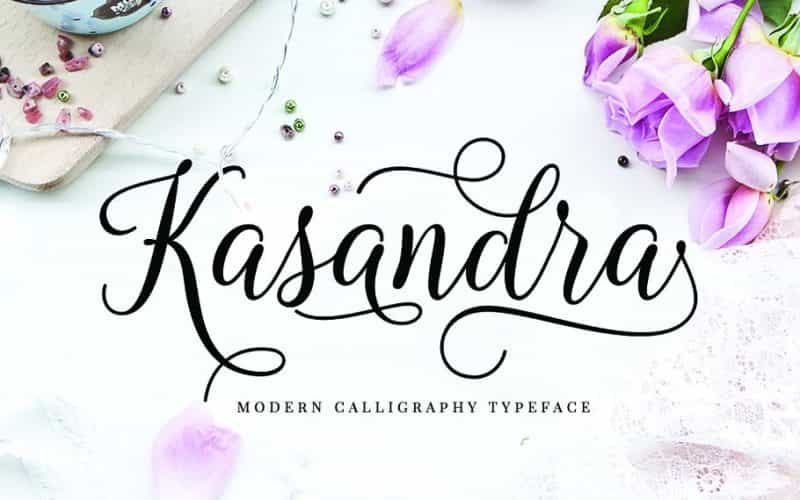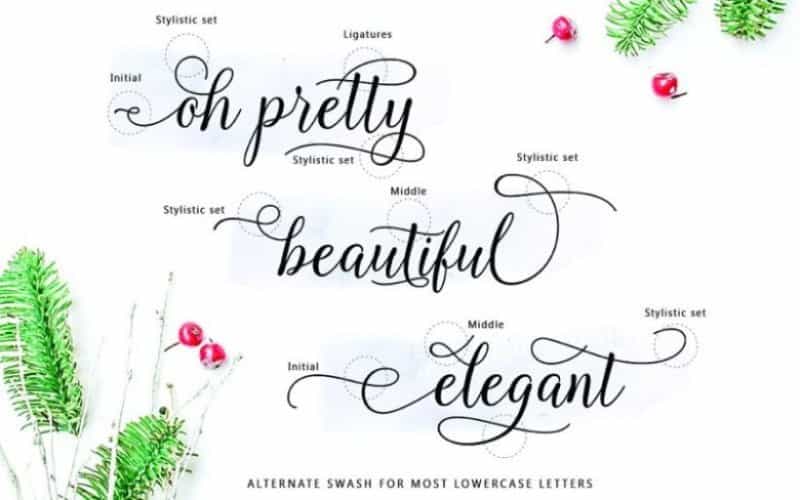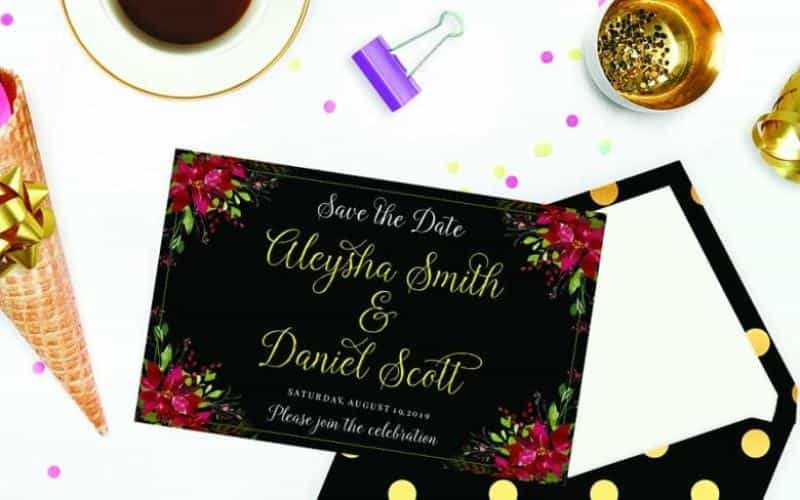
Kasandra Script is a contemporary calligraphy font which has a shifting baseline, a smooth line and a classic and sophisticated look. Can be applied to different things. for example, headings, signature, logos, wedding invitation, t-shirt, letterhead, signage, lable, news, posters, badges, etc.